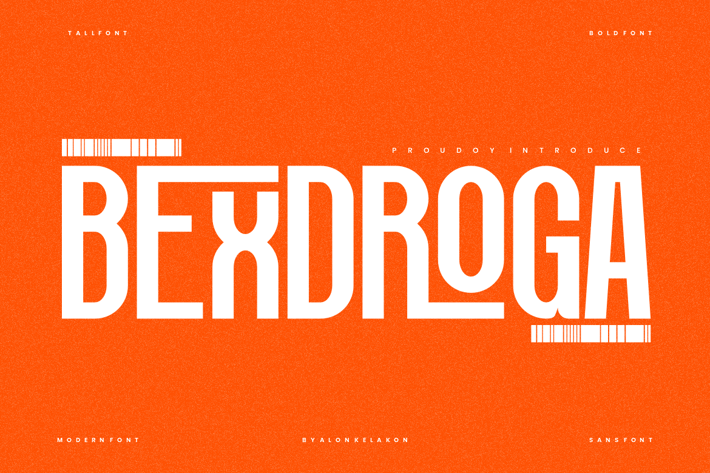
Bexdroga - Modern Sans Font
Bexdroga Font is unique . Ready to use for your design like labeling, movie sceen, poster, movie title, gigs, album covers, logos, and much more.